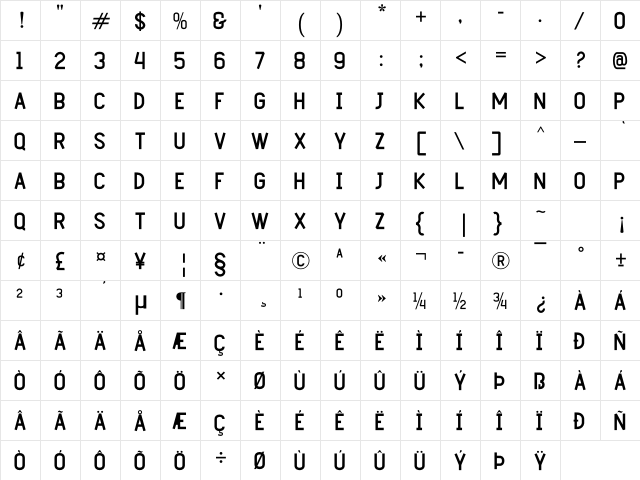
Corzie Regular
| Designer | Kurnia Setyadi |
Design Context for Corzie Typeface
Corzie is a composed and adaptable typeface that performs quietly and consistently across a wide range of design contexts.